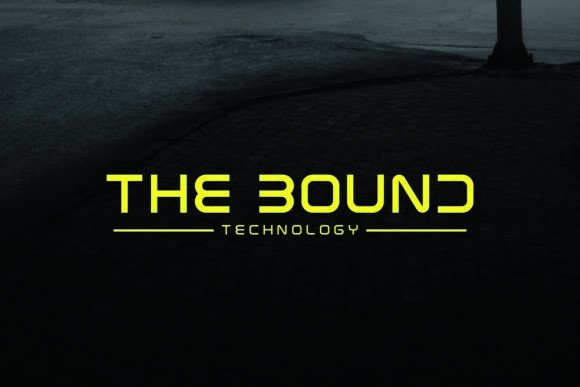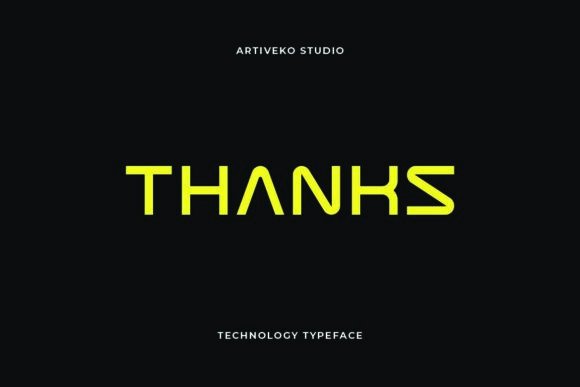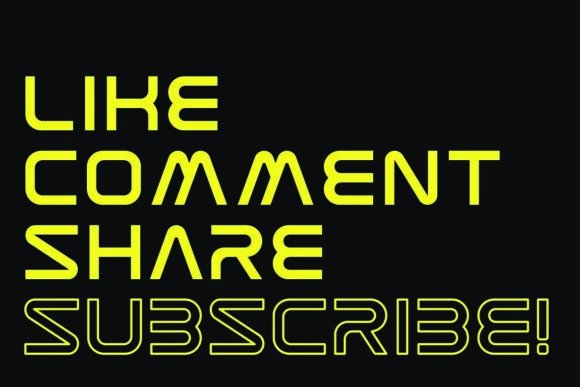
Introduction to Procaro Font
Procaro is a bold geometric tech font crafted for designers who seek precision, symmetry, and a futuristic aesthetic.
With its clean construction and sharp edges, Procaro combines modern digital vibes with timeless geometric balance — ideal for technology branding, UI design, esports logos, posters, and sci-fi titles .
Key Features of Procaro Font
Why Choose Procaro Font?